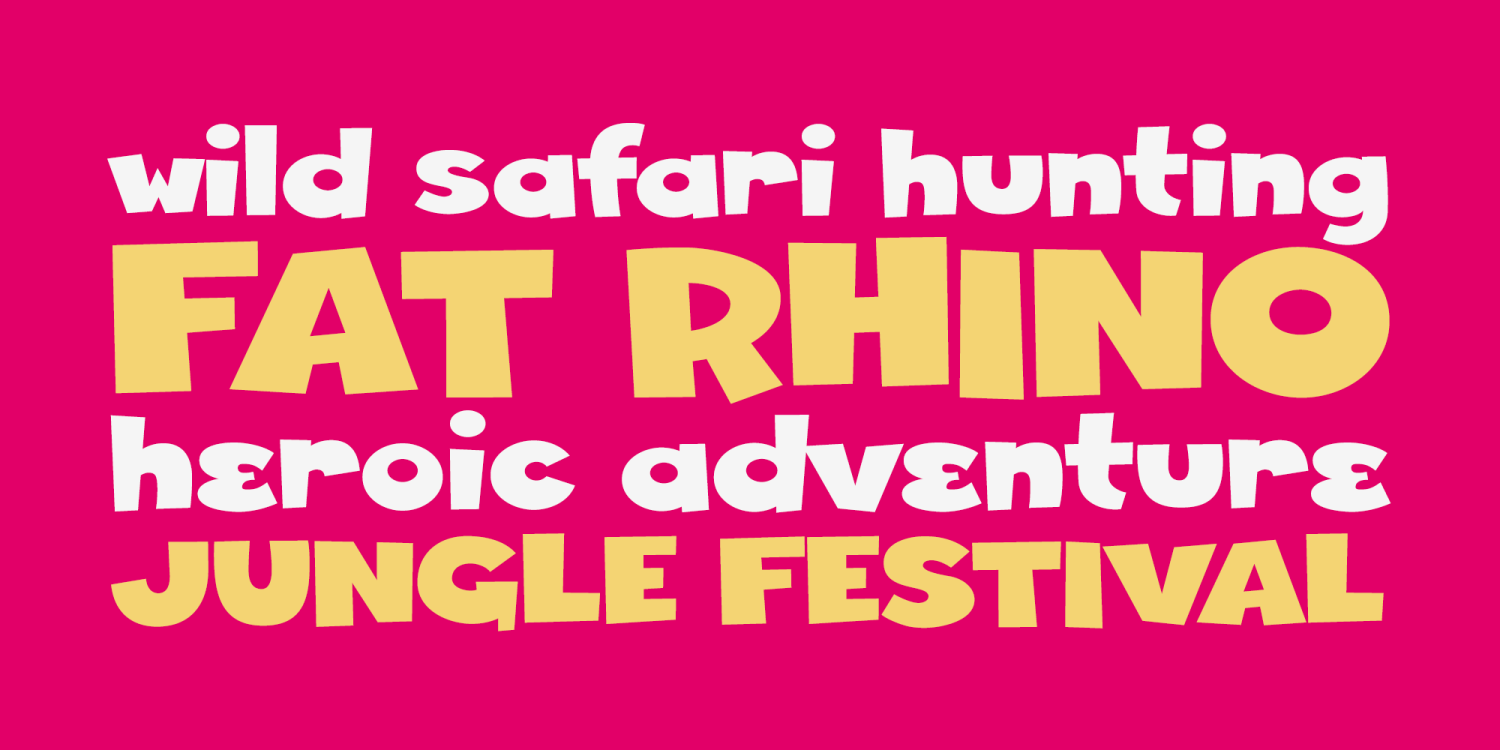
Goondocks PB Font Family - Poster #1
Goondocks PB Font Family - Poster #2
Goondocks PB Font Family - Poster #3
Goondocks PB Font Family - Poster #4
About Goondocks PB
HEY YOU GUYS! Goondocks PB is a faithful recreation of the titling font from 1985 film, "The Goonies". This was a lot of fun to recreate and flesh out, and it has that purposefully awkward appeal that a lot of Pink Broccoli fonts are imbued with. With a pseudo unicase styling, wonky blockish style lettering, and that visceral tieback to the 80's, Goondocks brings back fond memories, perfect for those unorthodox creative designs.
Goondocks PB Regular by Pink Broccoli